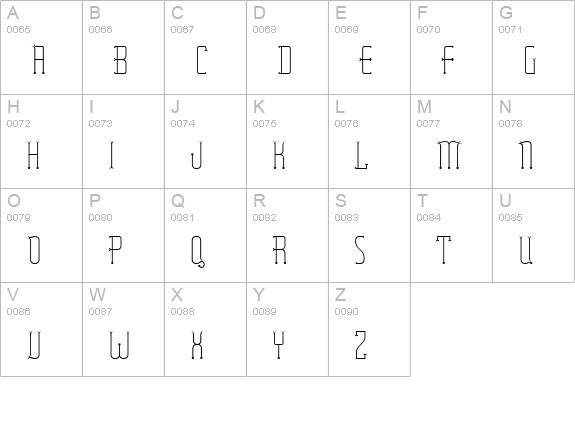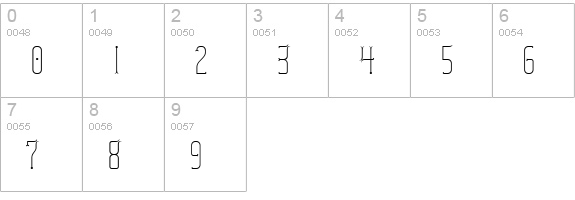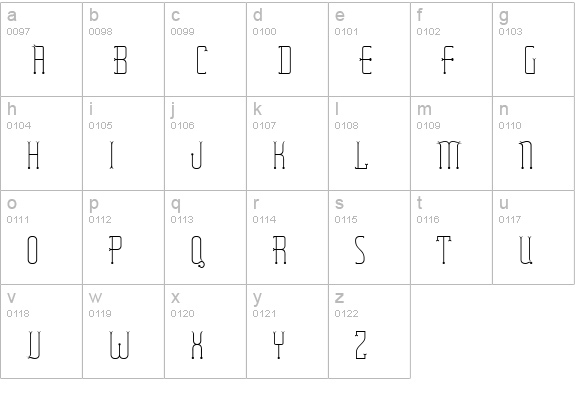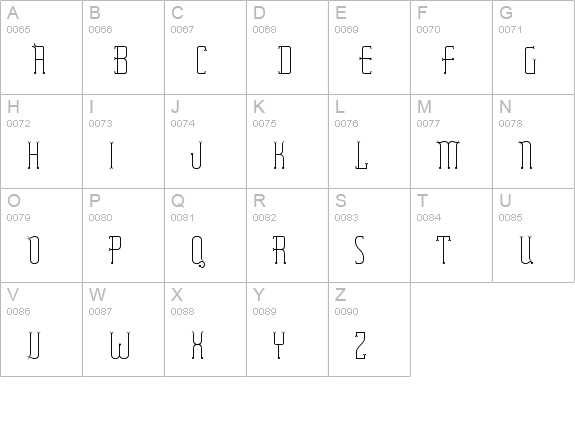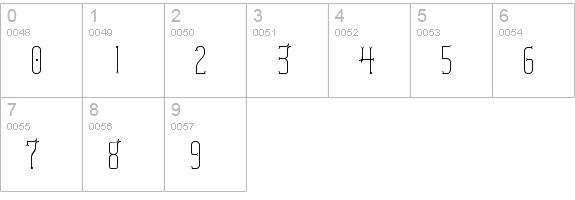
RubaiyatInline font is a modern and elegant typeface that exudes sophistication and style. Its sleek lines and contemporary design make it perfect for a wide range of projects, from branding to editorial design. The font features a unique inline style that adds a touch of flair and creativity to any text. With its versatile look, RubaiyatInline font is sure to make a statement and captivate your audience. Best of all, RubaiyatInline font is available for free download at FontsMarket.com. This means you can easily access this stunning typeface and use it in your projects without any cost. Don't miss out on the opportunity to elevate your designs with the distinctive charm of RubaiyatInline font. Download it today and let your creativity soar!